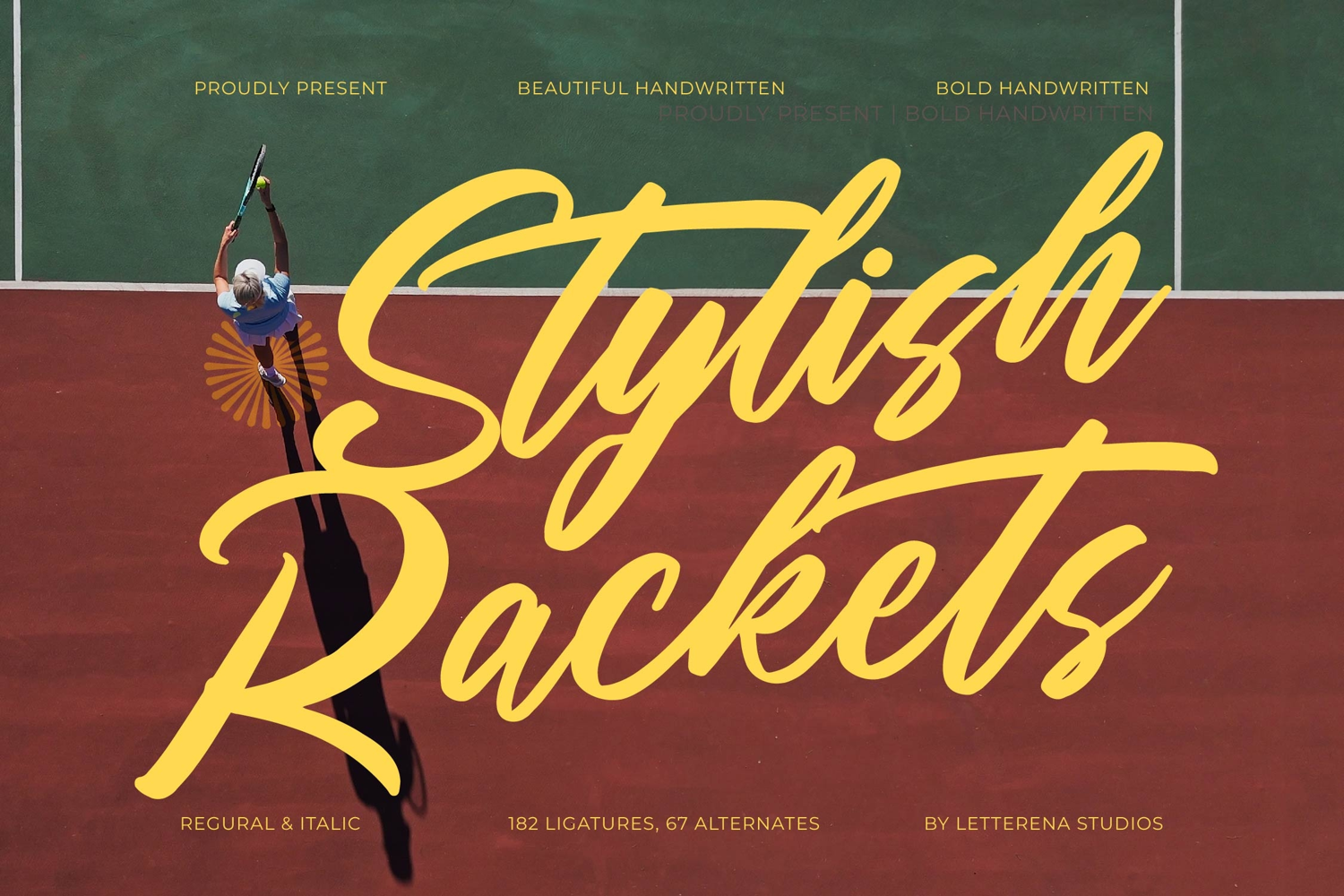
Stylish Rackets Beautiful Handwritten Font
Stylish Rackets Italic
Stylish Rackets
Stylish Rackets - Beautiful Handwritten Font , from Letterena, is a Luxury Script font, suitable for any projects such as: logos, branding projects, homeware designs, product packaging, mugs, quotes, posters, shopping bags, t-shirts, book covers, name card, invitation cards, greeting cards, label, photography, watermark, special events, and all your other luxury and beautiful projects that need a Luxury Script taste.
182 Ligature 67 Alternate & Swashes